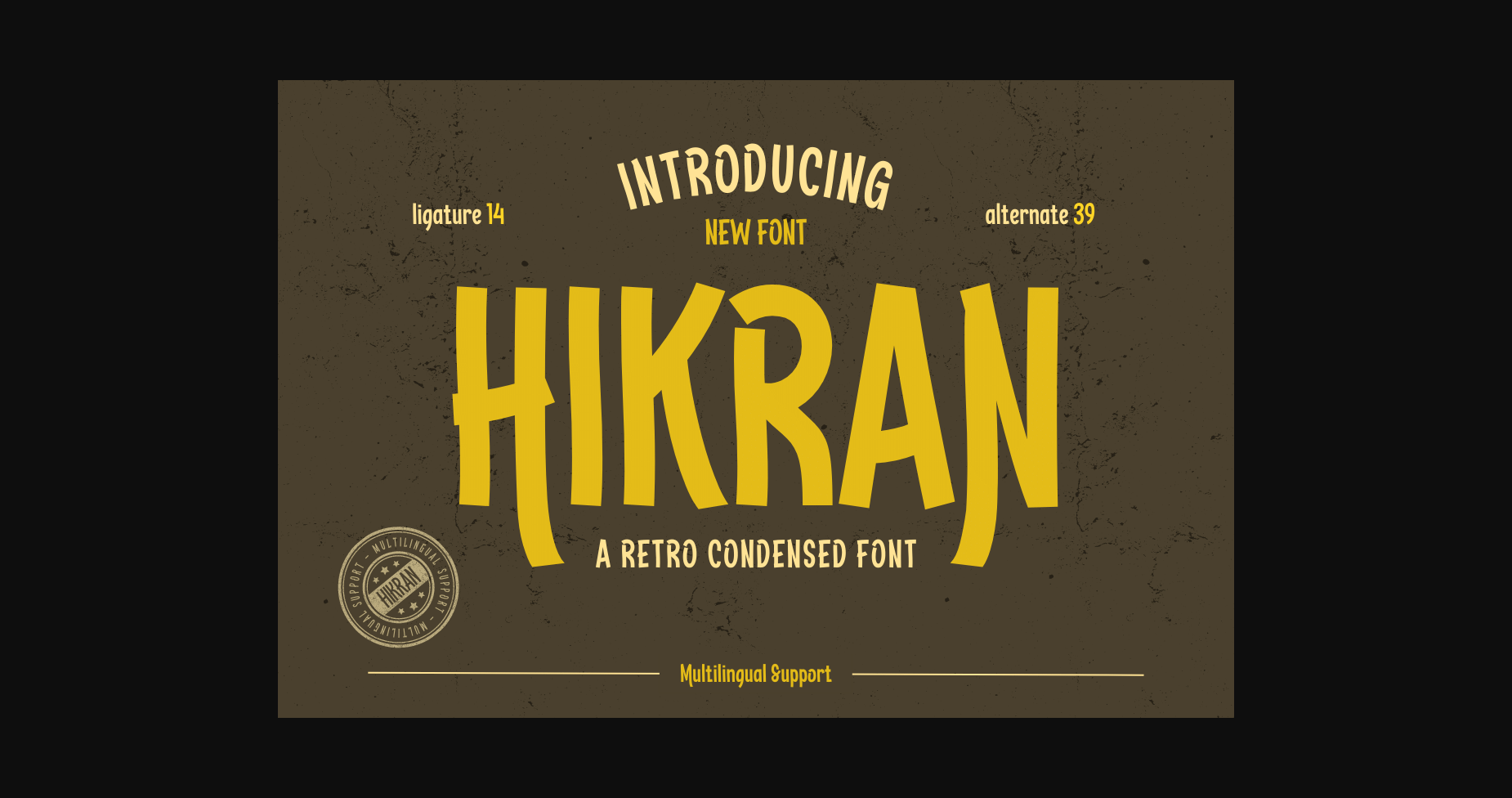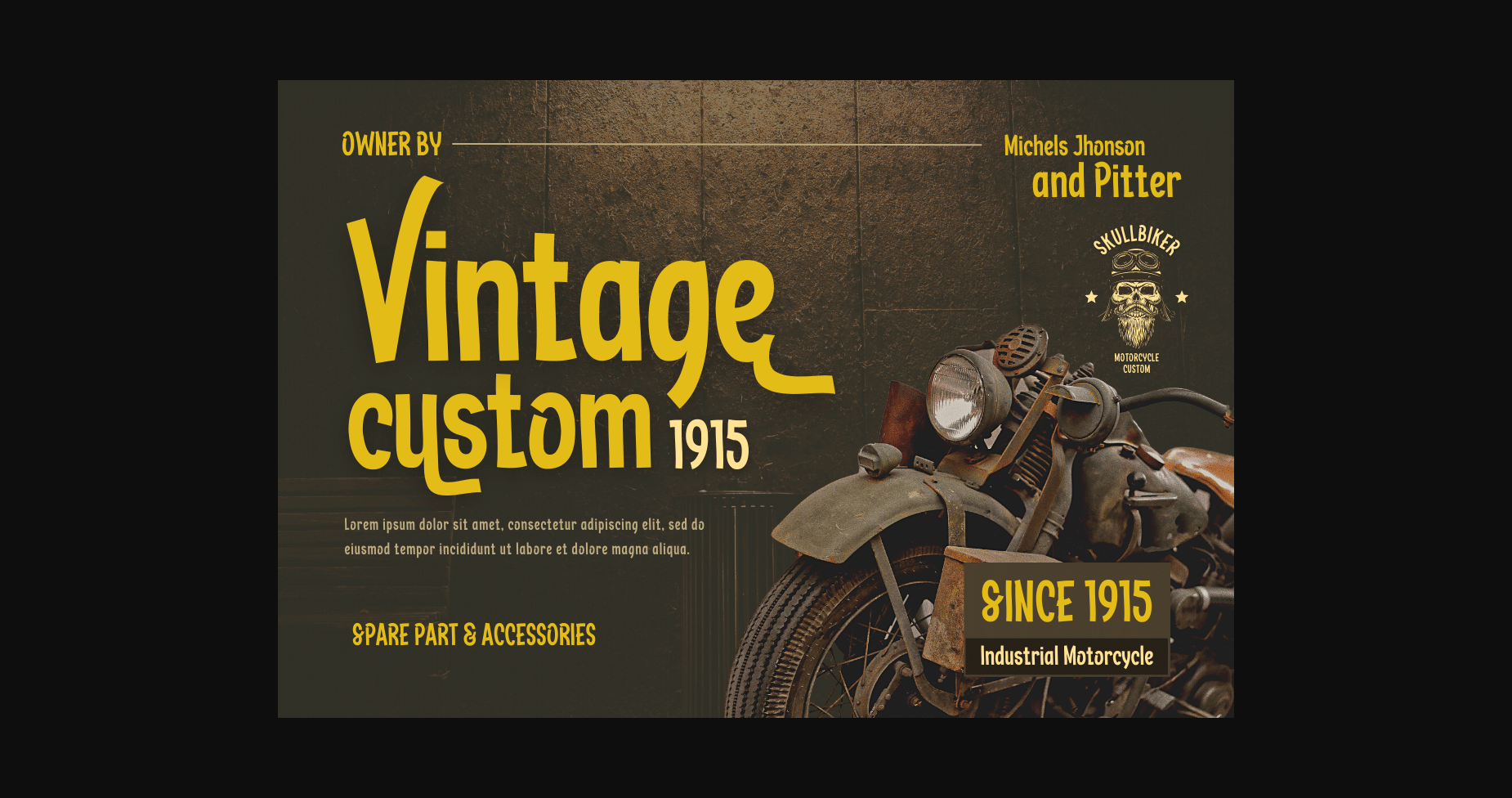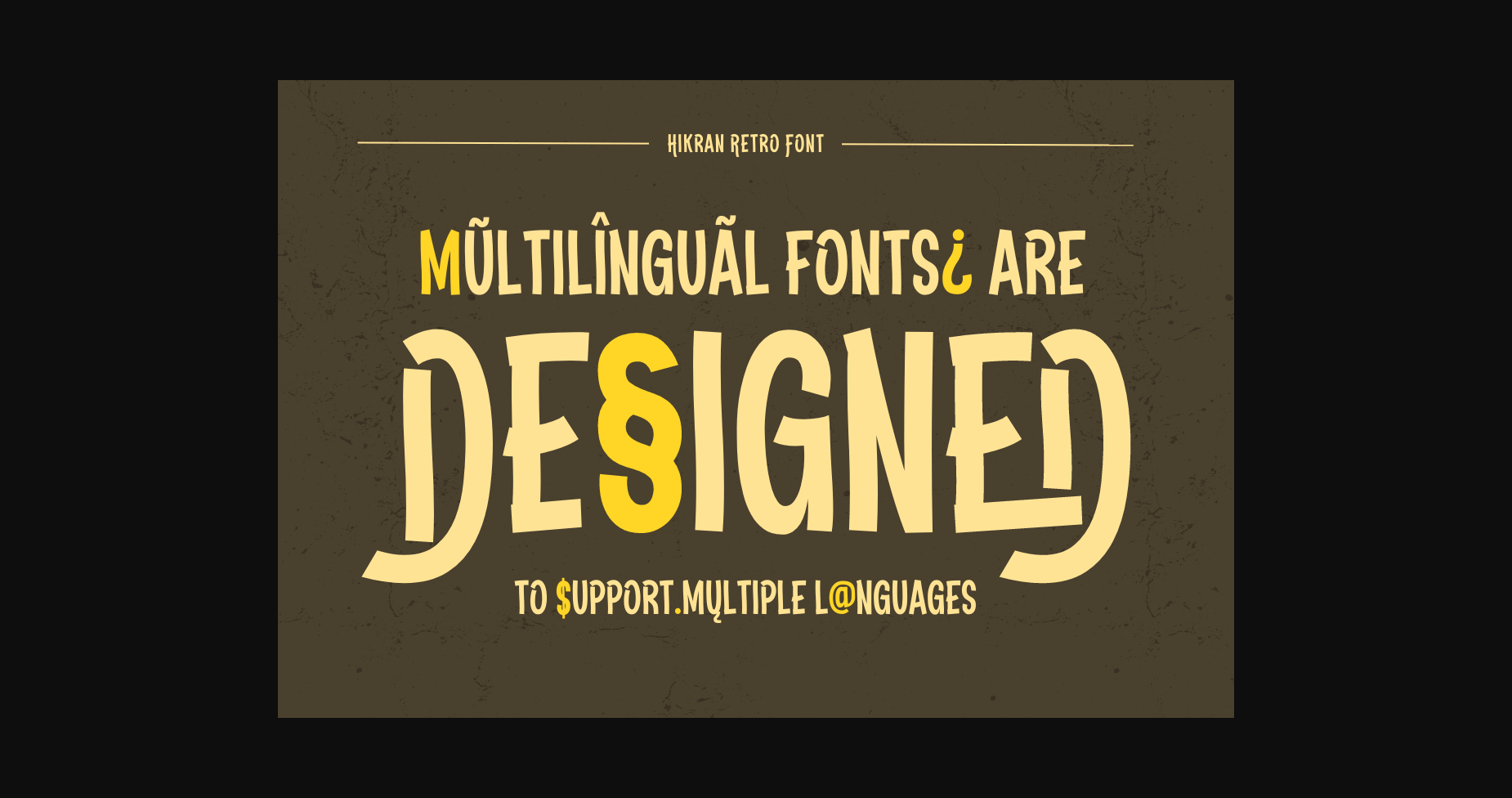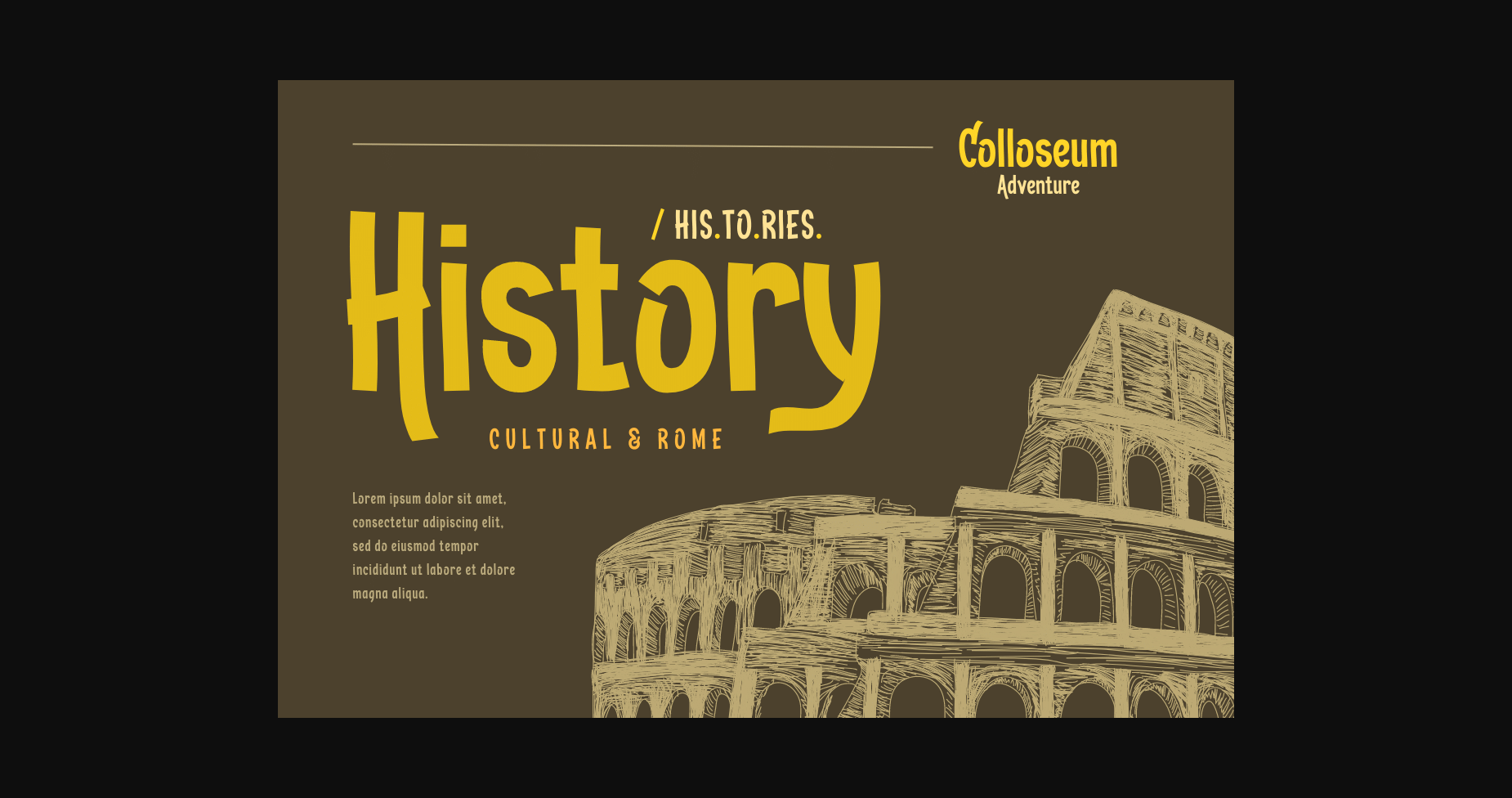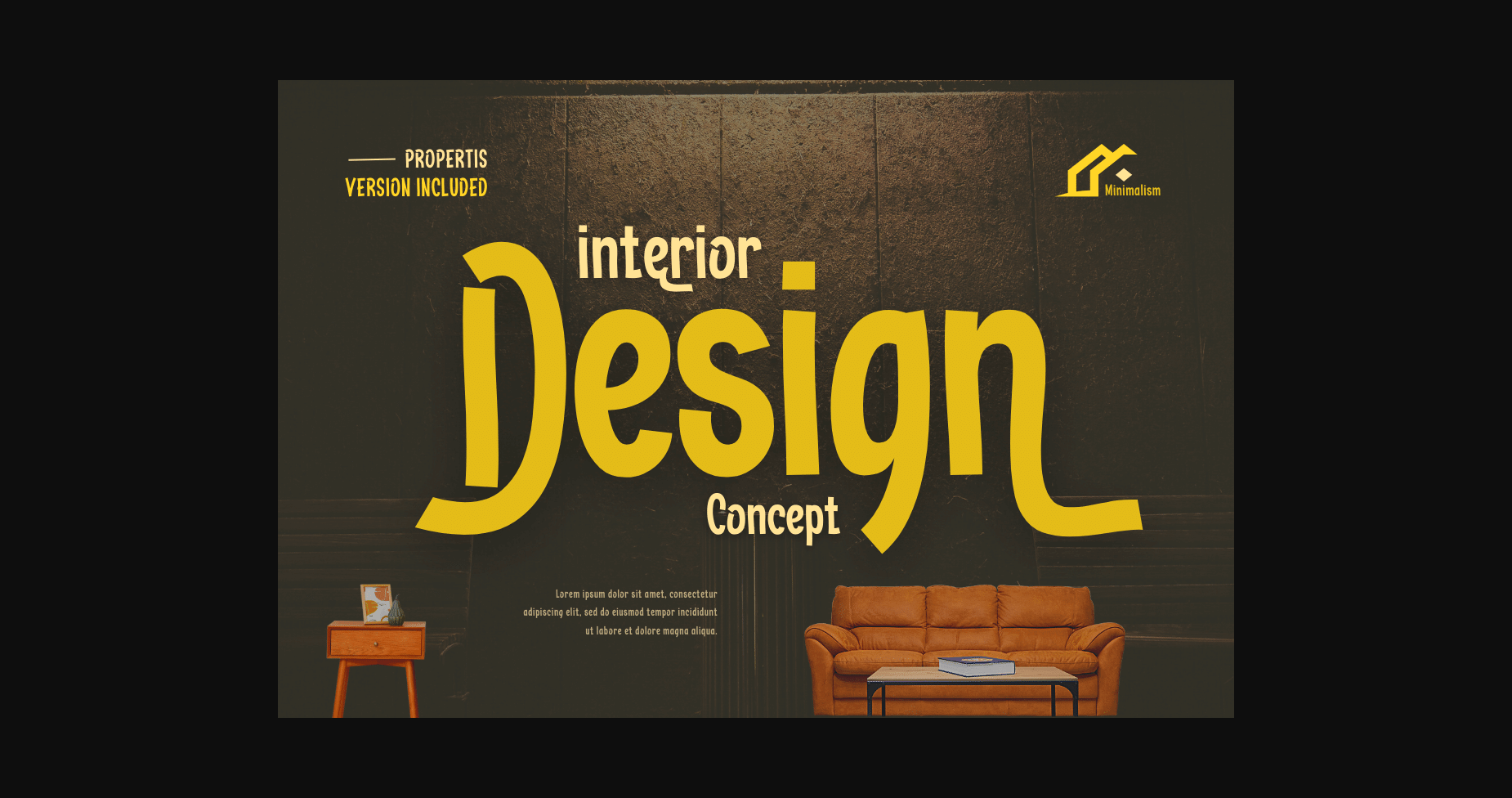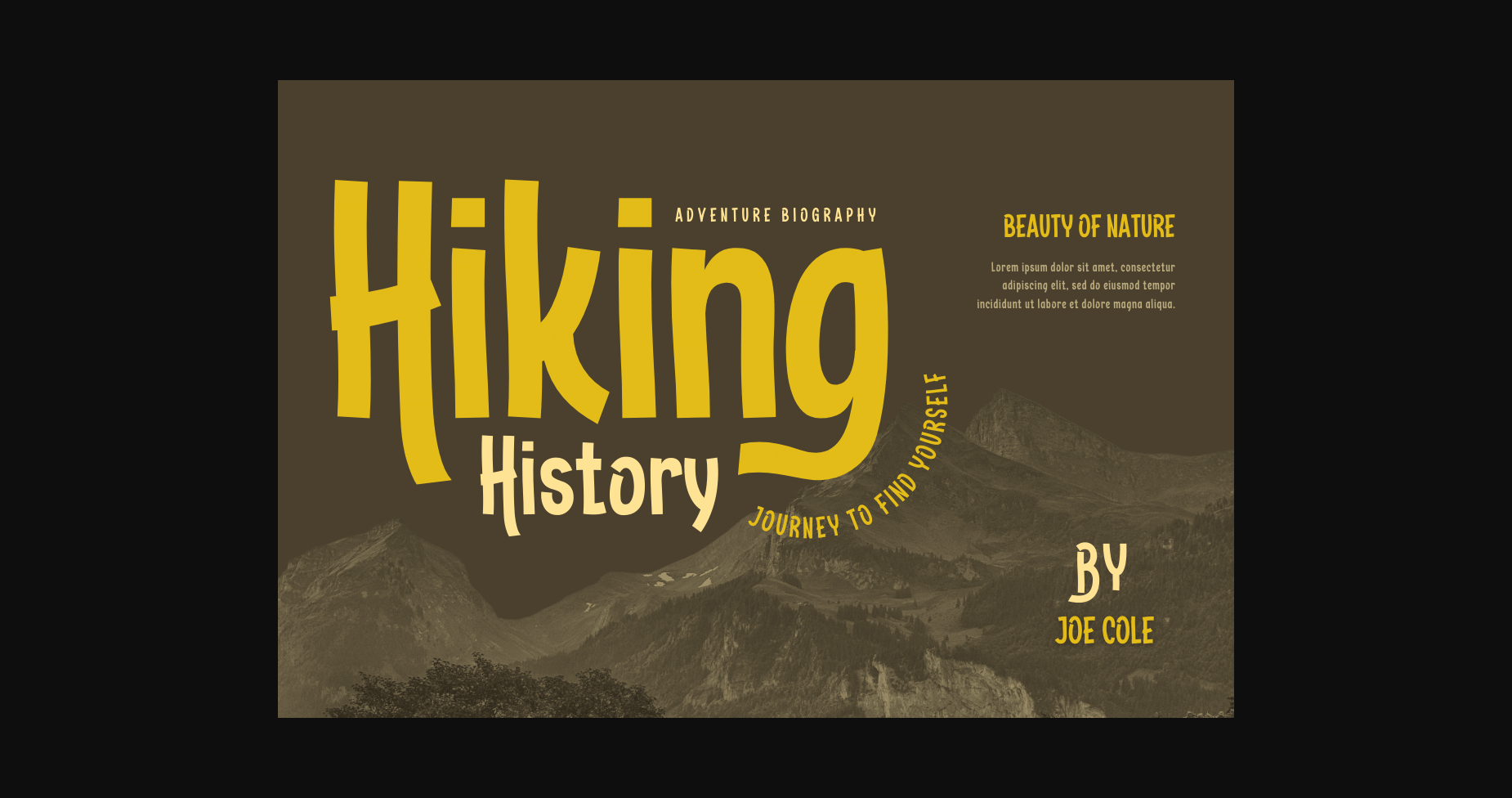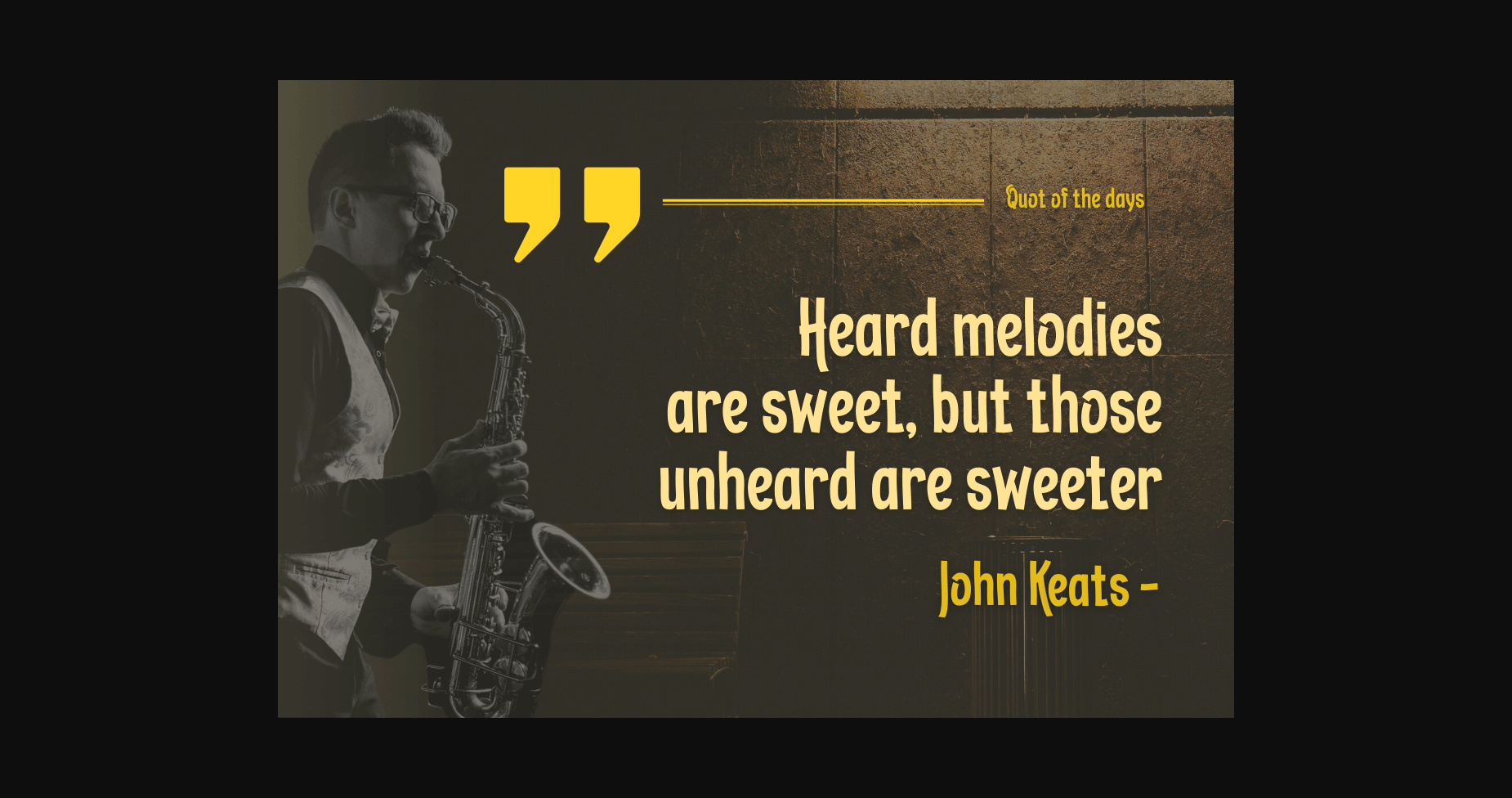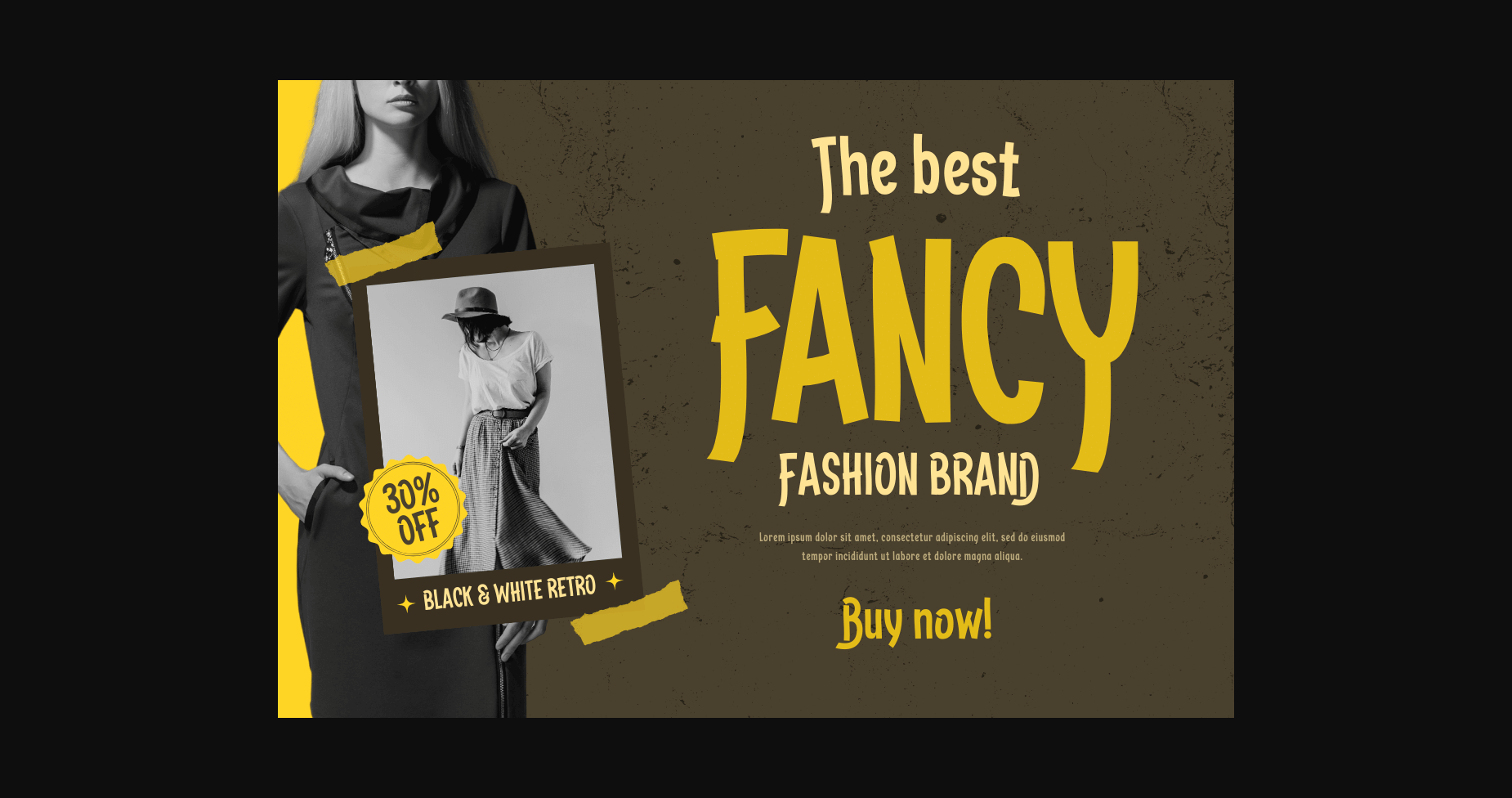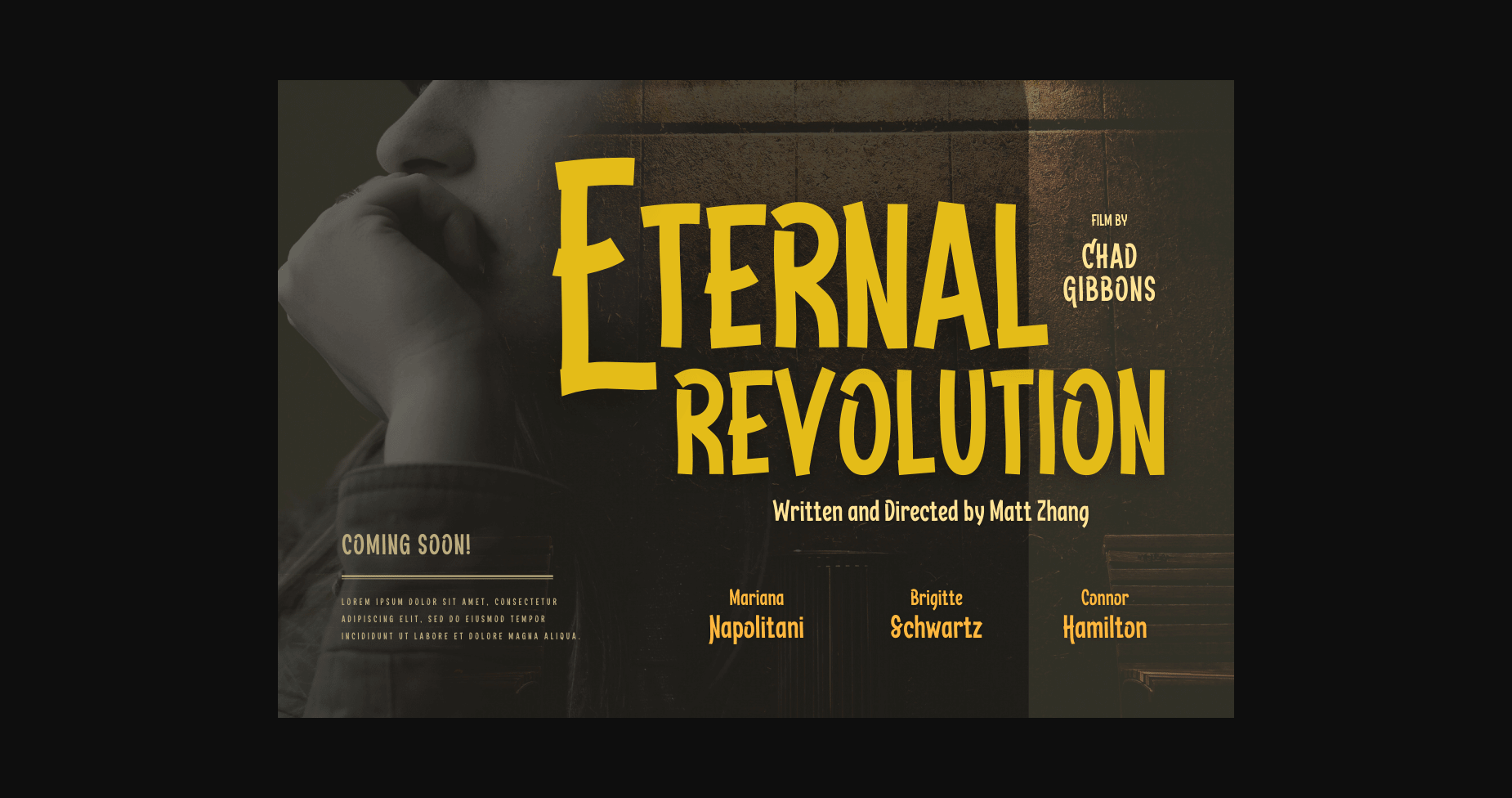
About Hikran Font
Hikran is a stylish retro condensed font perfect for various design projects. With its tall and unique letter shapes, Hikran is a great choice for both headlines and body text. The font comes with stylistic alternates and ligatures, giving you plenty of options to create a personalized look. Hikran’s retro theme adds a touch of nostalgia to your designs, making it perfect for vintage-inspired projects or any design that needs a bold and classic feel.